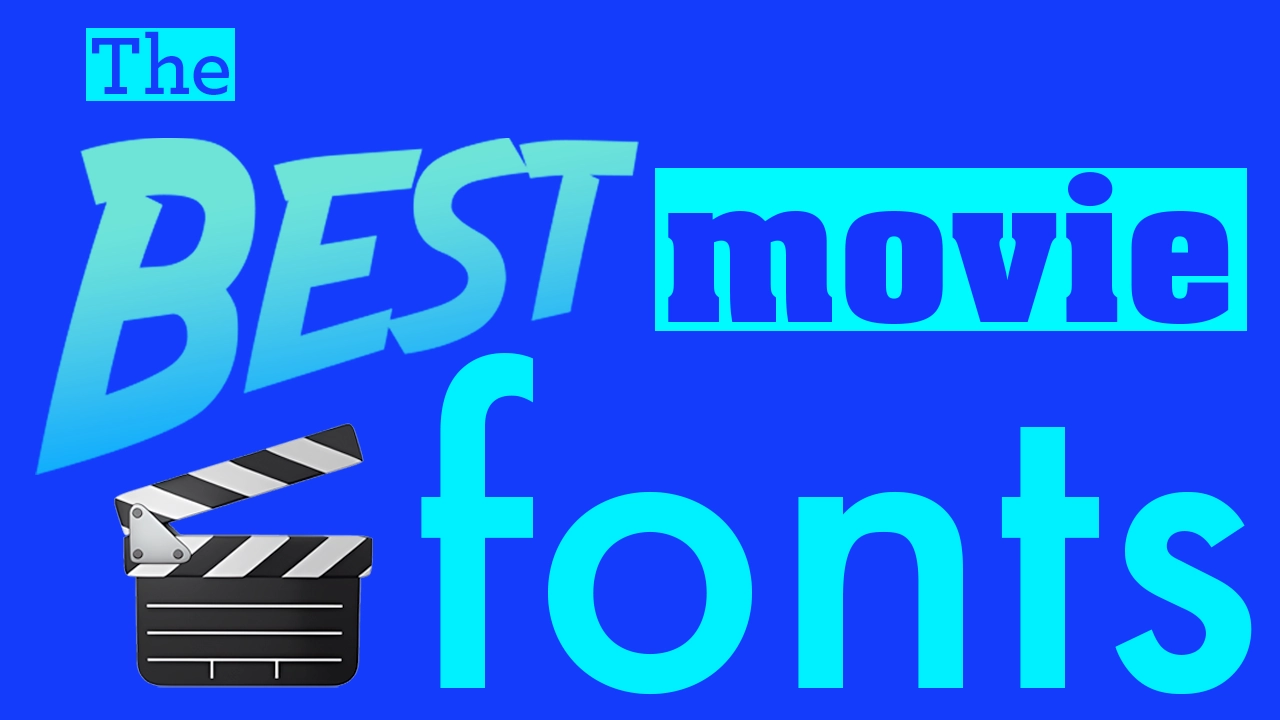
The best movie fonts of all time
Nine fonts that have played a part in defining the looks of classic films.
A font choice can help define a movie's identity, playing an important part in an audience’s first impression of it. Fonts appear in a movies' titles, posters, marketing materials and all throughout a film. All of this typography establishes a film’s aesthetic, and coherence between the font chosen and the film’s message is essential.
01. Papyrus
• By Chris Costello
Although Papyrus is a divisive font, its jolty letters became iconic with its use in the Avatar title graphic. Papyrus has never gained much positive popularity, but when styled and designed individually it can provide everything you need and become unrecognisable. People will be shocked when you tell them your expert typography is actually Papyrus! This font should be used sparingly and only in the right setting, and you should be prepared to adjust it to make it work – but if its groundworks have headlined a world-famous film, it clearly has potential.
02. Futura
• By Paul Renner (Paratype)
It was inevitable that such a vastly used font would make it to this list, with Paul Renner’s typeface dominating typography all over the world today but especially in the ‘60s. You can’t move for it in genre-defining sci-fi films and space films, with its use on the posters of 2001: A Space Odyssey, inside the space ships in Interstellar, and all over the newspaper props Bladerunner: The Final Cut. In contrasting genres, it’s also been used all over Wes Anderson’s vibrant films, all of which are full of typography-based production design. Type is actually widely relied on to make Anderson’s dream-like worlds convincing, and Futura is used as his house font in all of his films other than Moonrise Kingdom and The Grand Budapest Hotel.
03. Indiana Jonas
• By Vit Condak
The typography of the title graphic from the Indiana Jones film is undoubtedly iconic. Its design was inspired by the styles of old-fashioned adventure posters and also holds connotations of comic strips, fitting for the film’s tone. Although its inspirations stemmed from print, the typography was created for the film’s on-screen title graphic, creating a noticeable homage to its inspirations at the time. These inspirations combined with the wacky orange-yellow gradient make it an iconic moment in on-screen film typography. Indiana Jonas is the most accurate available reworking of the font, available to download from DaFont.
04. News Gothic Bold
• By Morris Fuller Benton
News Gothic Bold is the font behind the title of Psycho’s famous opening graphic, a sans serif choice edited to appear glitchy despite its modern typeface. The graphic was jarring for audiences at the time, when serif fonts were used more commonly in film titles, and the jolty editing created a great sense of tension, ready for the film’s oncoming plot.
05. Gill Sans Nova
• By Monotype
Although Futura was Kubrick’s favourite font to employ in all his films, it was only used on the posters of 2001: A Space Odyssey, where Gill Sans was used for the film’s title graphic. A popular grotesque font which has collected a large portfolio of practical, professional usage over the years such as in the BBC logo, Penguin’s iconic ‘30s book design, and several British train companies, Gill Sans is the best of the best, and could not have a more impressive track record. It’s not just sci-fi films and big companies that have snapped up this font though; its flexibility has even made it suitable for the Toy Story logo too. Gill Sans Nova is Monotype’s most modern version of the font, and is available on Adobe Fonts.
06. ITC Serif Gothic
• By Antonio DiSpigna, Herb Lubalin, ITC
For those in search of the font used in the world-famous Star Wars typography, ITC Serif Gothic is responsible for the logo of Star Wars. The extra serifs that make the logo so recognisable were hand-modified, but the bones of the typography come from ITC Serif Gothic. Its flexible nature also placed it in the credits of Star Wars and even in Star Trek as well, making it the ideal fit for all areas of sci-fi films.
07. Neue Aachen Pro Bold
• By Colin Brignall, Monotype
Aachen Bold was the font created by Colin Brignall for the title graphic of Pulp Fiction. Its retro serifs and blocky structure complemented the matching retro colours of muted orange and red that helped signify the production style and inspirations of the film. Neue Aachen Pro Bold is a reworking of the same font created by Monotype and available on Adobe Fonts, making it an excellently crafted professional equivalent, and available for all your creative projects.
08. Helvetica
• By Max Meidinger, Eduard Houffmann, Linotype (now Monotype)